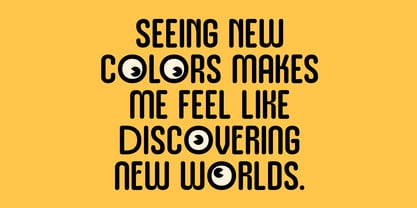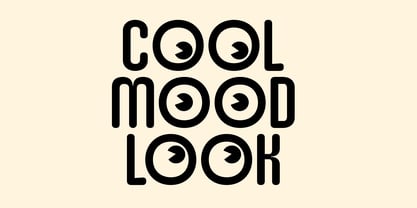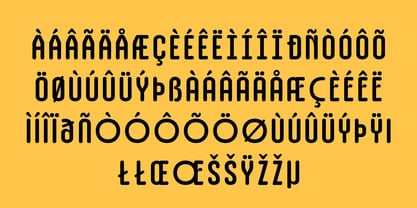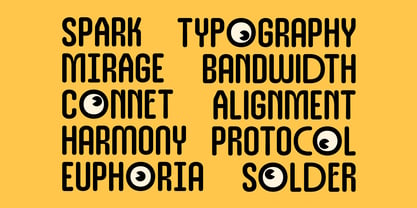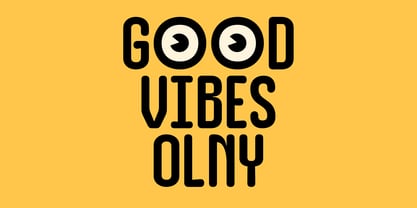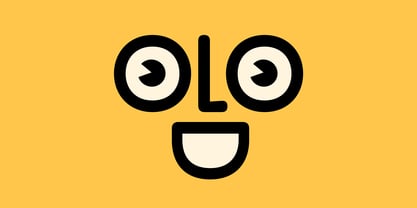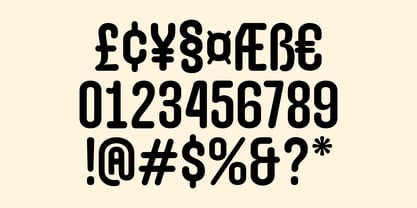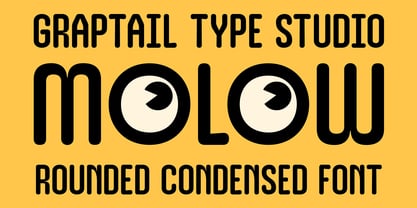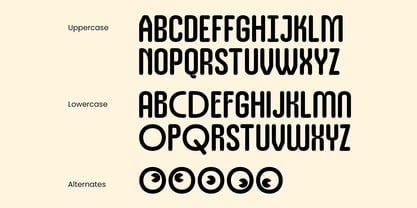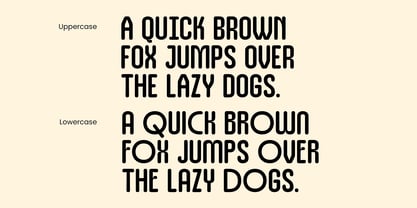
Molow
by Graptail
The Molow Font Family was designed by Teuku Deky Firnanda and published by Graptail. Molow contains 1 styles. More about this family
Molow – Rounded Condensed Font with Playful Shape and Bold Personality. Molow is a rounded condensed font that seamlessly blends modernity with a fun and expressive style in every letter. Its standout feature is the five unique small “o” variations, each crafted to resemble eye-like shapes, infusing character and emotion into your typography. This font is perfect for projects requiring a friendly yet striking visual touch, making it ideal for: packaging design, movie titles and posters, T-shirt graphics, character or mascot branding, and illustrative and editorial design.
Designers: Teuku Deky Firnanda
Foundry: Graptail